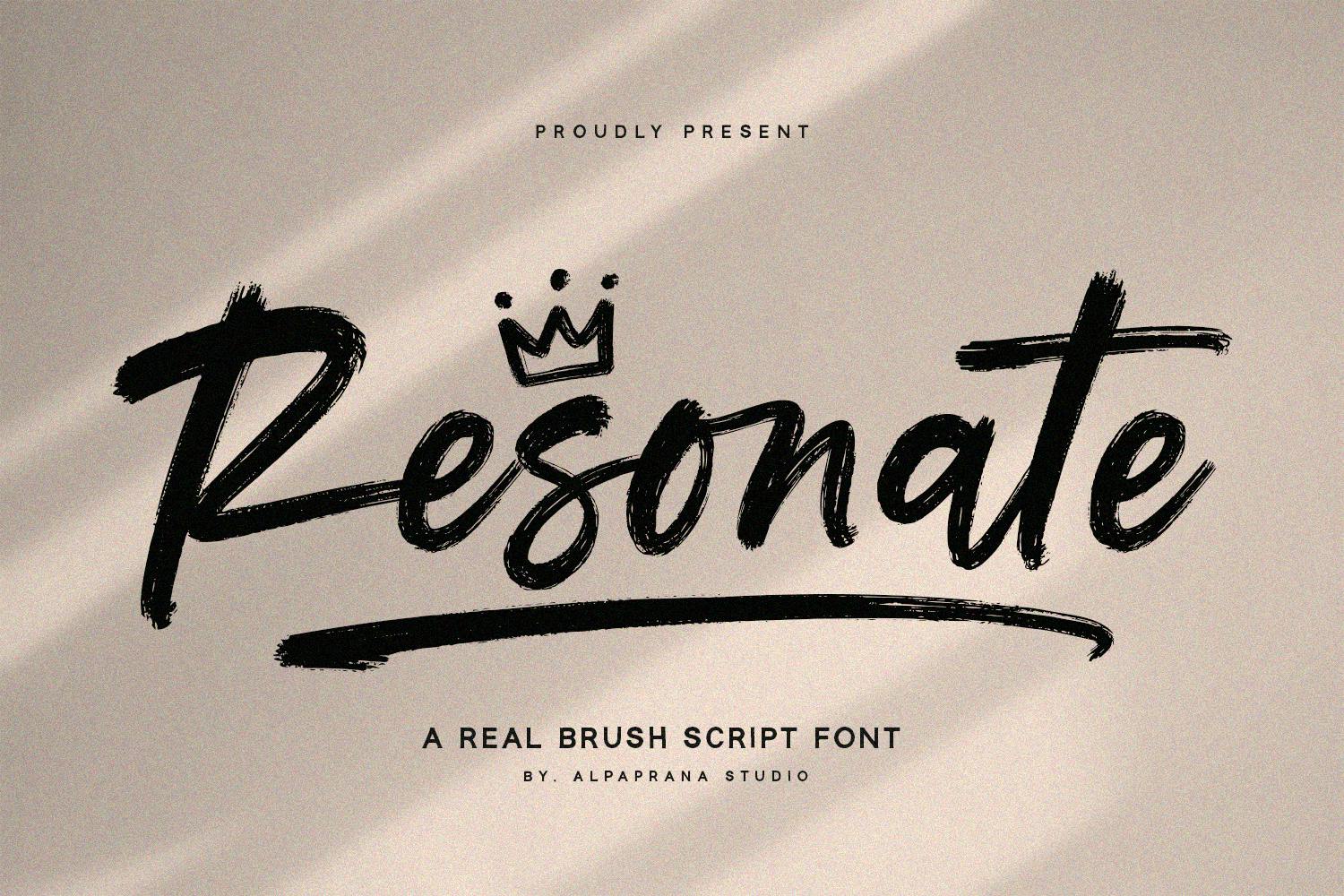
Resonate Font
Resonate Font harmonizes across sound engineering studio branding, audio equipment manufacturer identities, music production company materials, acoustic consulting presentations, vibration therapy wellness centers, sound healing practice signage, musical instrument retailer graphics, concert hall documentation, audio technology exhibitions, sonic research publications, resonance therapy programs, and harmonic marketing campaigns where vibrational harmony and acoustic excellence create profound auditory experiences.
This harmonious typeface generates excitement through its perfect embodiment of acoustic resonance and vibrational harmony that creates typography designed to echo with emotional depth and sonic sophistication. Resonate Font captures the essence of acoustic perfection with its carefully balanced letterforms that suggest the precise frequencies and harmonic relationships found in exceptional sound engineering and musical composition. The font's resonant design approach incorporates elements that evoke sound waves, harmonic overtones, and the sympathetic vibrations that occur when different frequencies align in perfect acoustic harmony. Its distinctive character reflects the precision, sensitivity, and technical excellence that define authentic audio engineering and sound design mastery.
The Resonate Font family encompasses multiple harmonic variations including Regular, Light, Medium, Bold, and Harmonic versions, each maintaining the font's characteristic acoustic balance while offering different levels of resonant impact. The collection features sound wave-inspired styling, harmonic effects, and vibrational textures that enhance its acoustic aesthetic. Additional elements include frequency symbols, sound wave ornaments, acoustic decorative borders, and harmonic flourishes that reinforce the font's connection to professional audio engineering and sound design excellence.
Audio professionals and acoustic technology companies consistently select Resonate Font Free Download for projects requiring typography that communicates sonic expertise and acoustic engineering excellence. This remarkable typeface excels in applications where establishing audio credibility and conveying harmonic sophistication are essential for sound industry and wellness success. The font's resonant qualities make it particularly effective for audio equipment manufacturers, sound healing practitioners, and acoustic consulting firms targeting audiences who appreciate sonic precision and harmonic excellence.
Whether you're designing audio engineering presentations, creating sound healing wellness materials, developing acoustic technology campaigns, or crafting harmonic communications, Resonate Font delivers unmatched acoustic authenticity. Its ability to convey sonic precision, harmonic balance, and acoustic excellence makes it invaluable for audio professionals seeking typography that genuinely reflects the depth and sophistication of sound engineering artistry. The font's resonant presence ensures your designs will communicate the harmonic precision and acoustic mastery that define exceptional sound communications and vibrational wellness experiences.